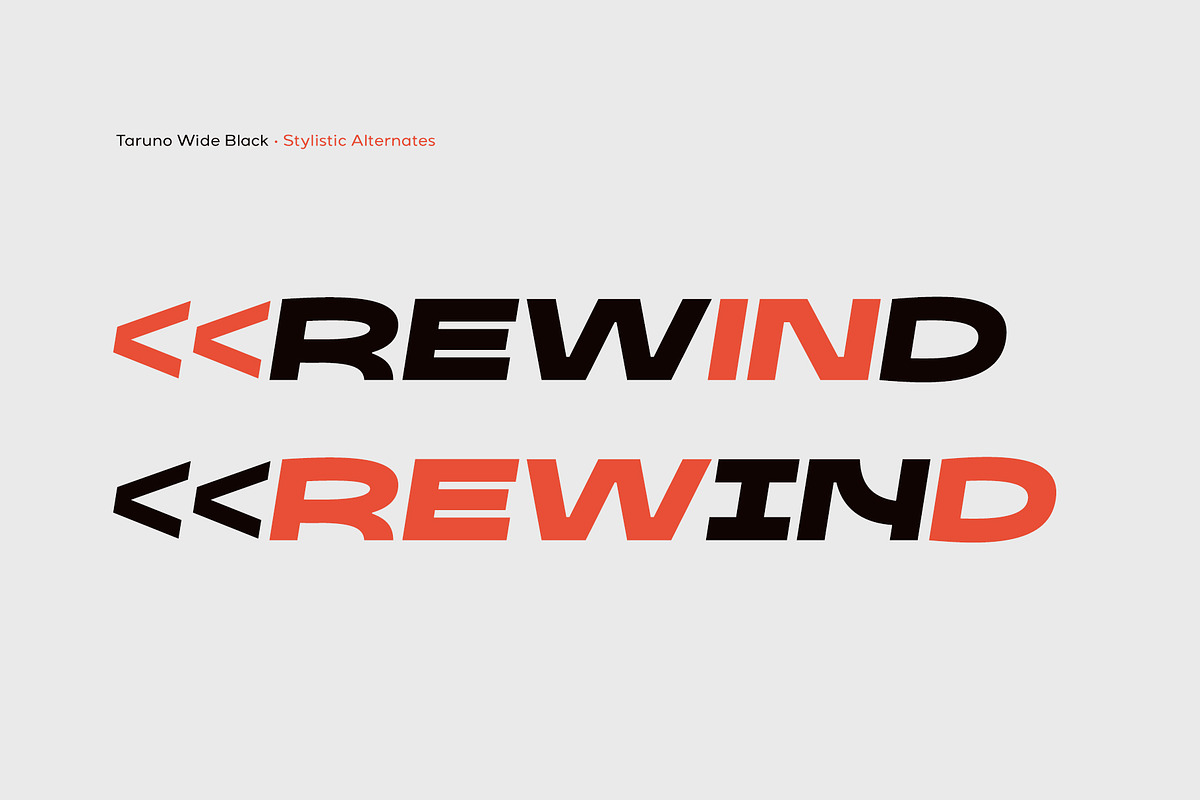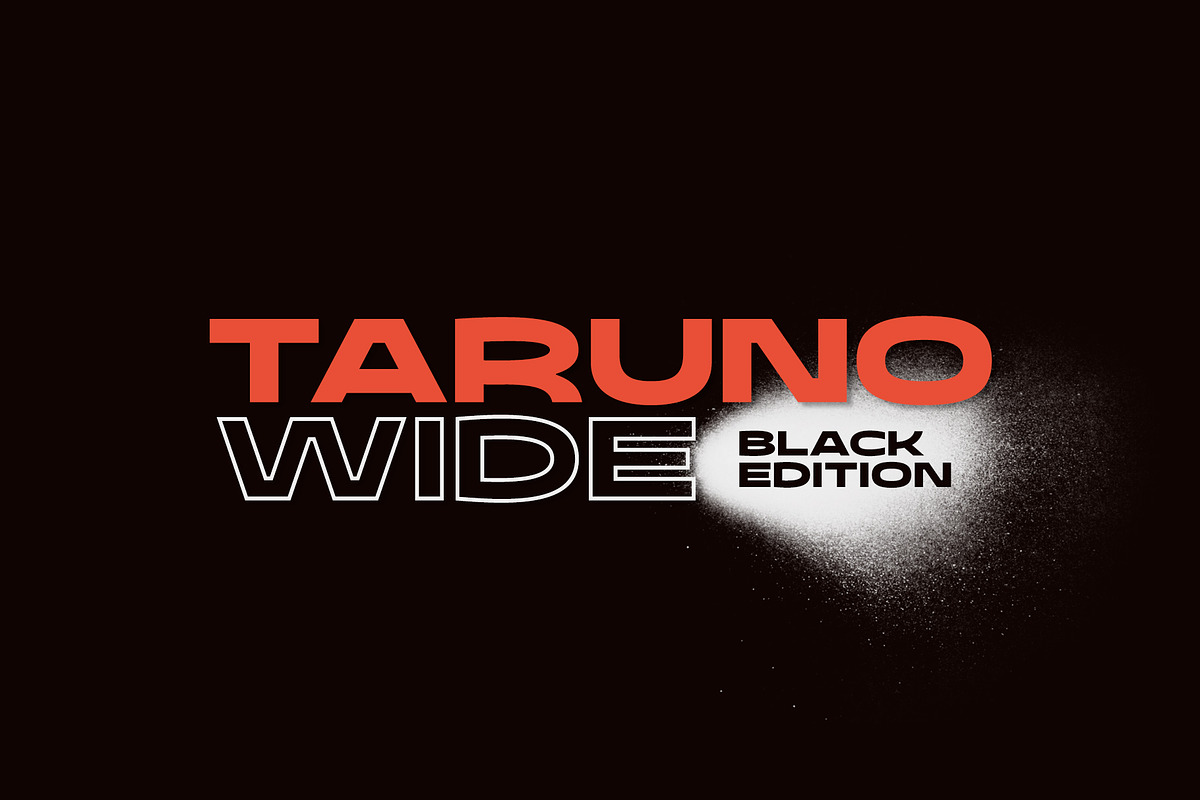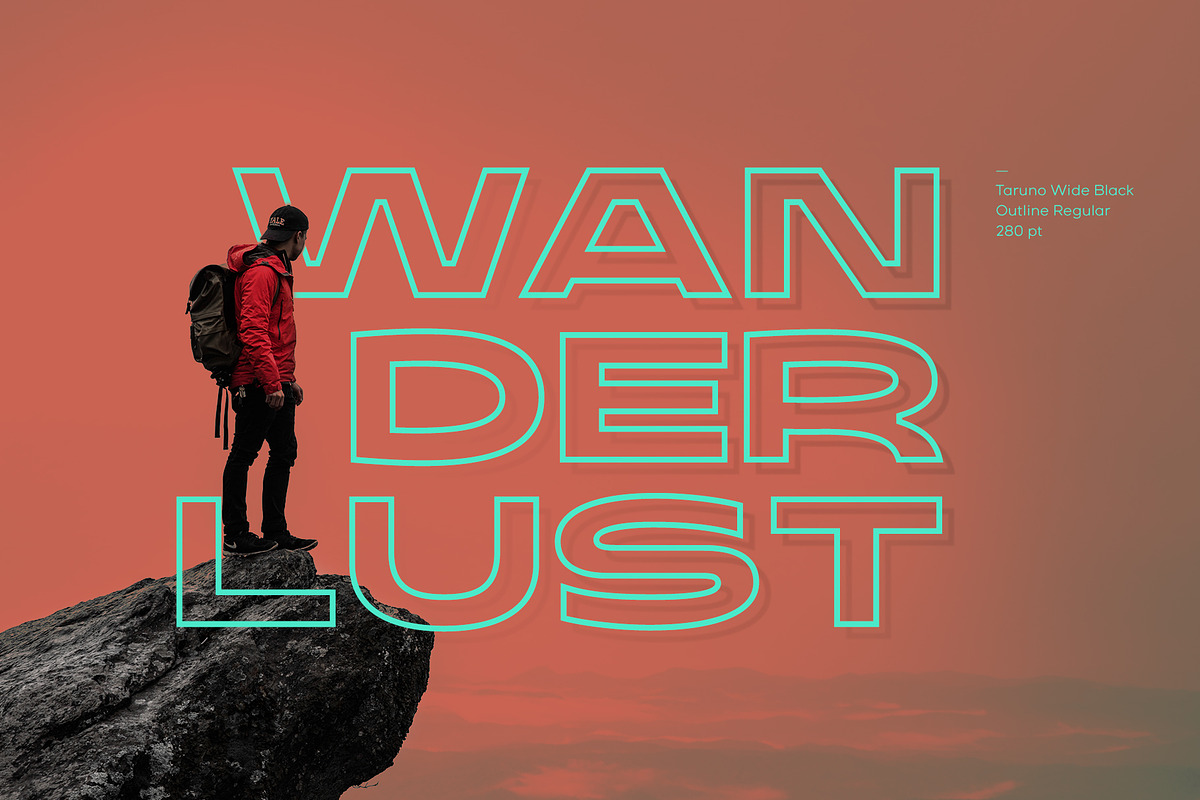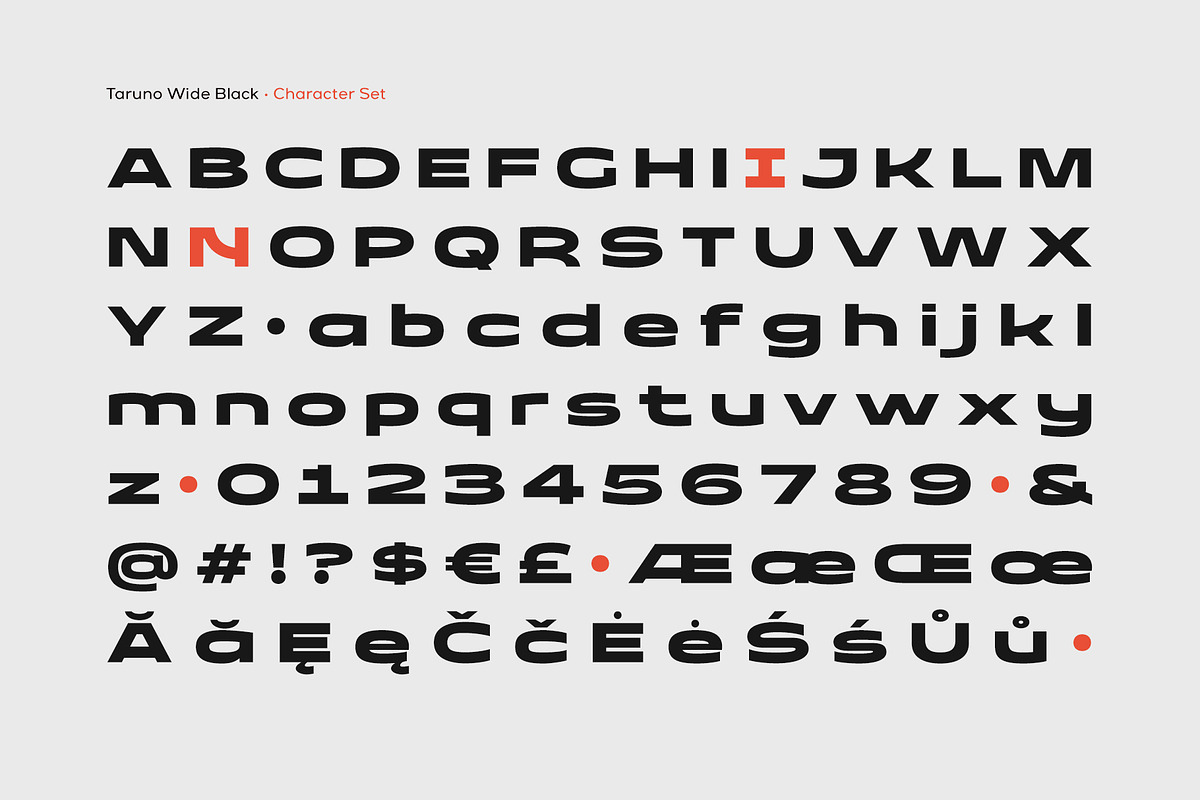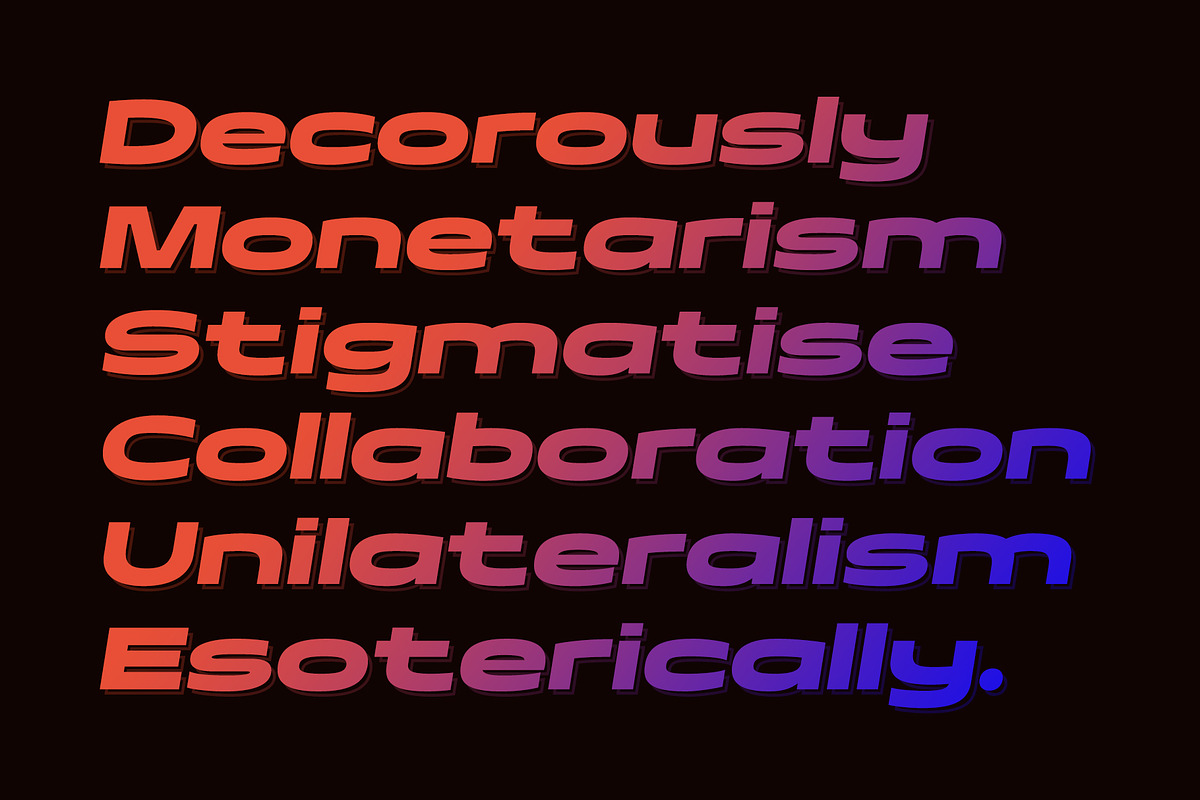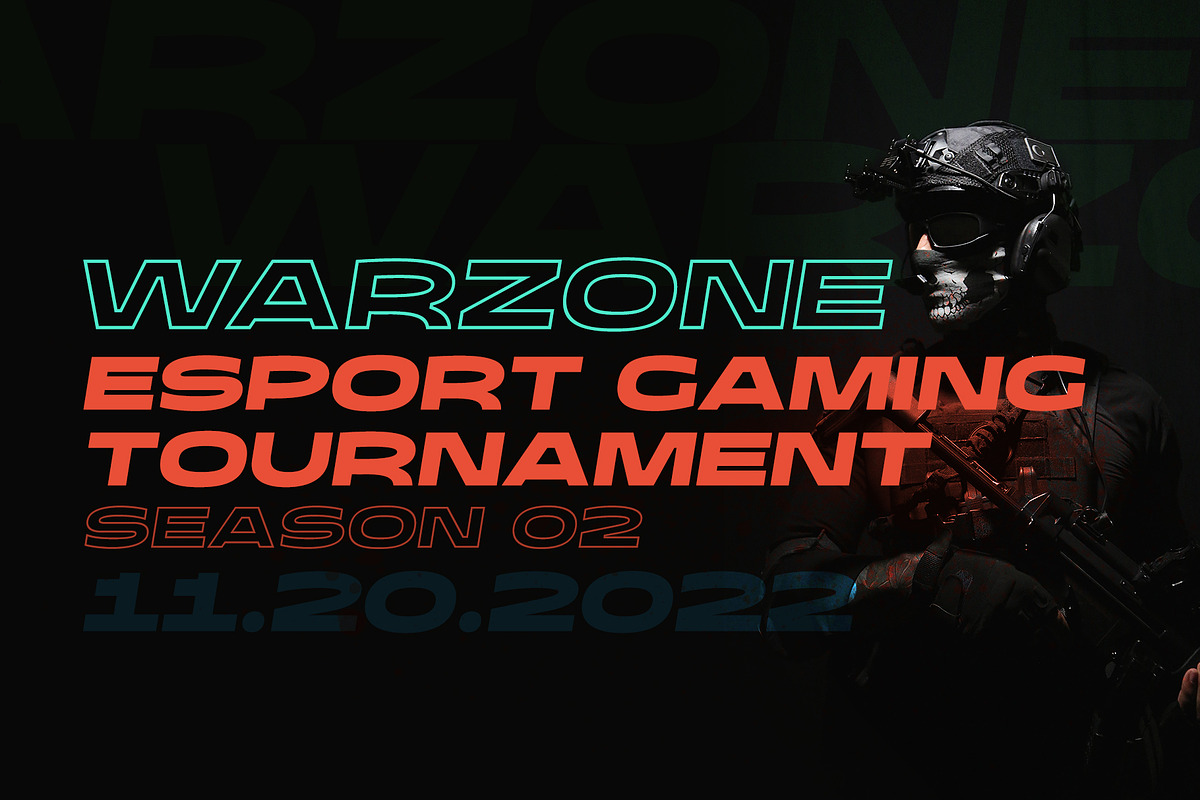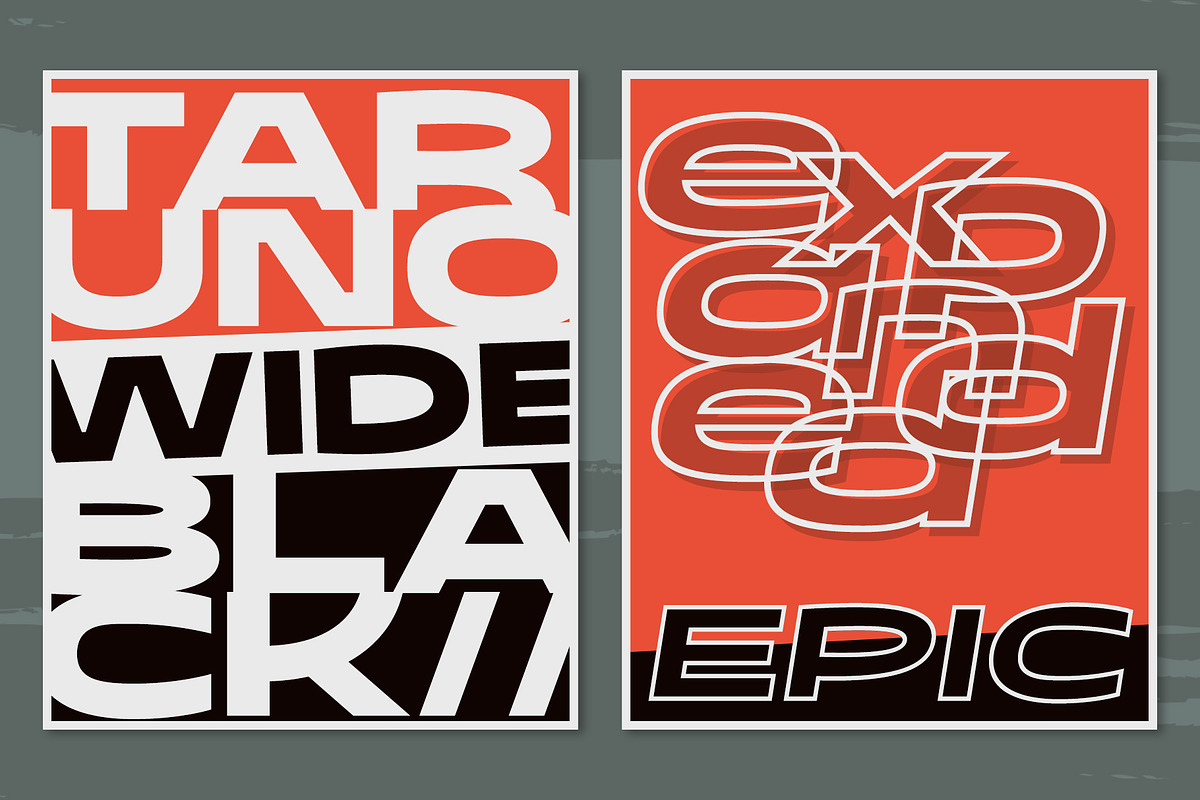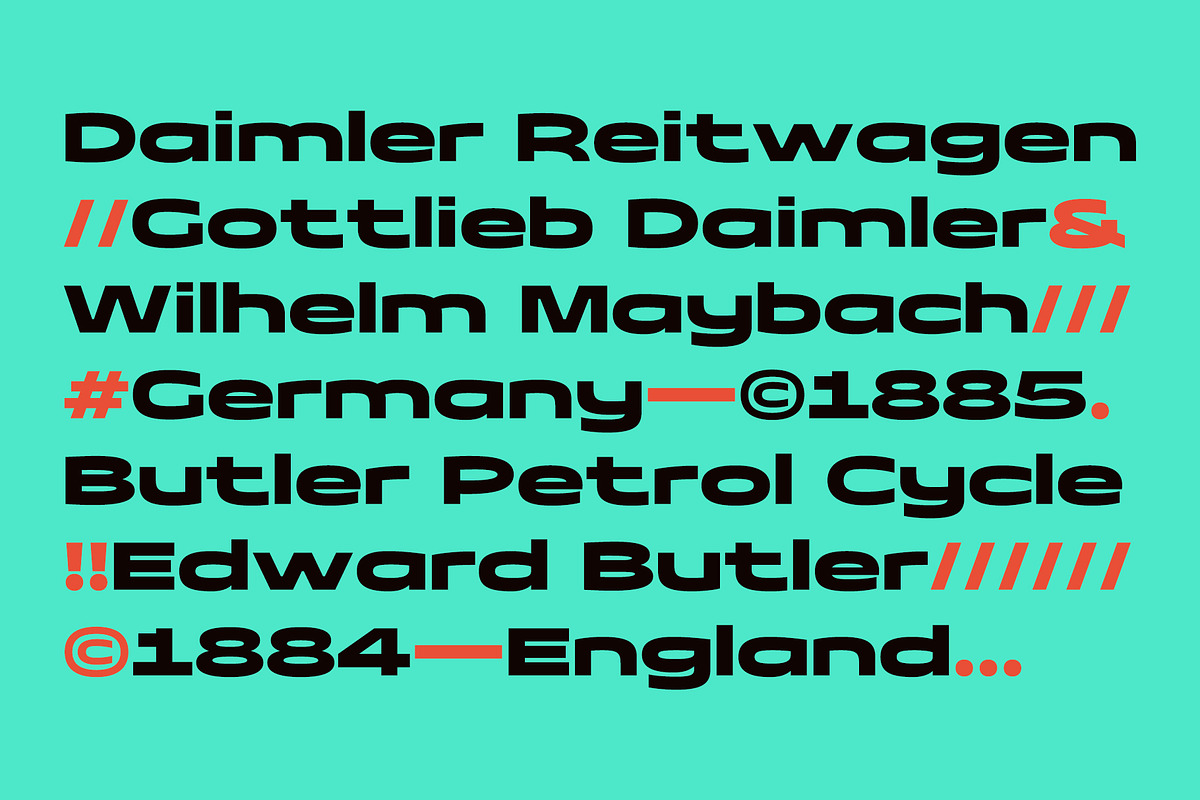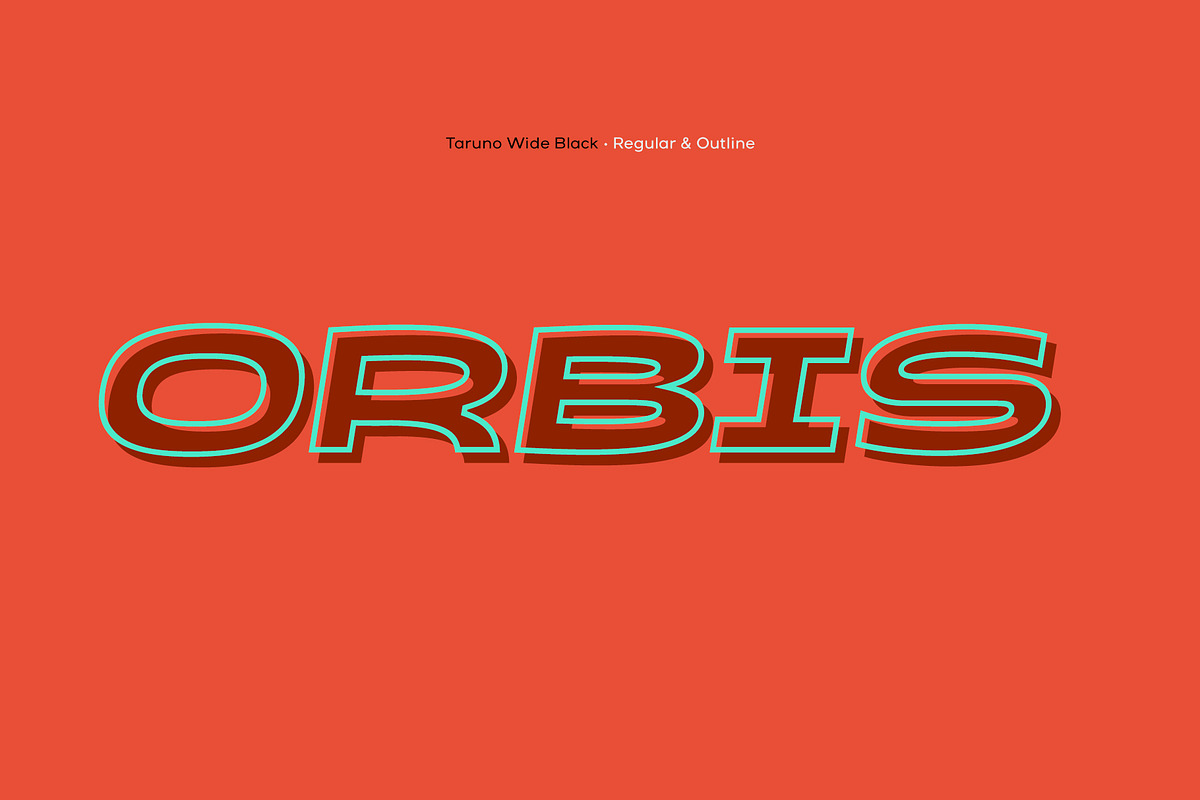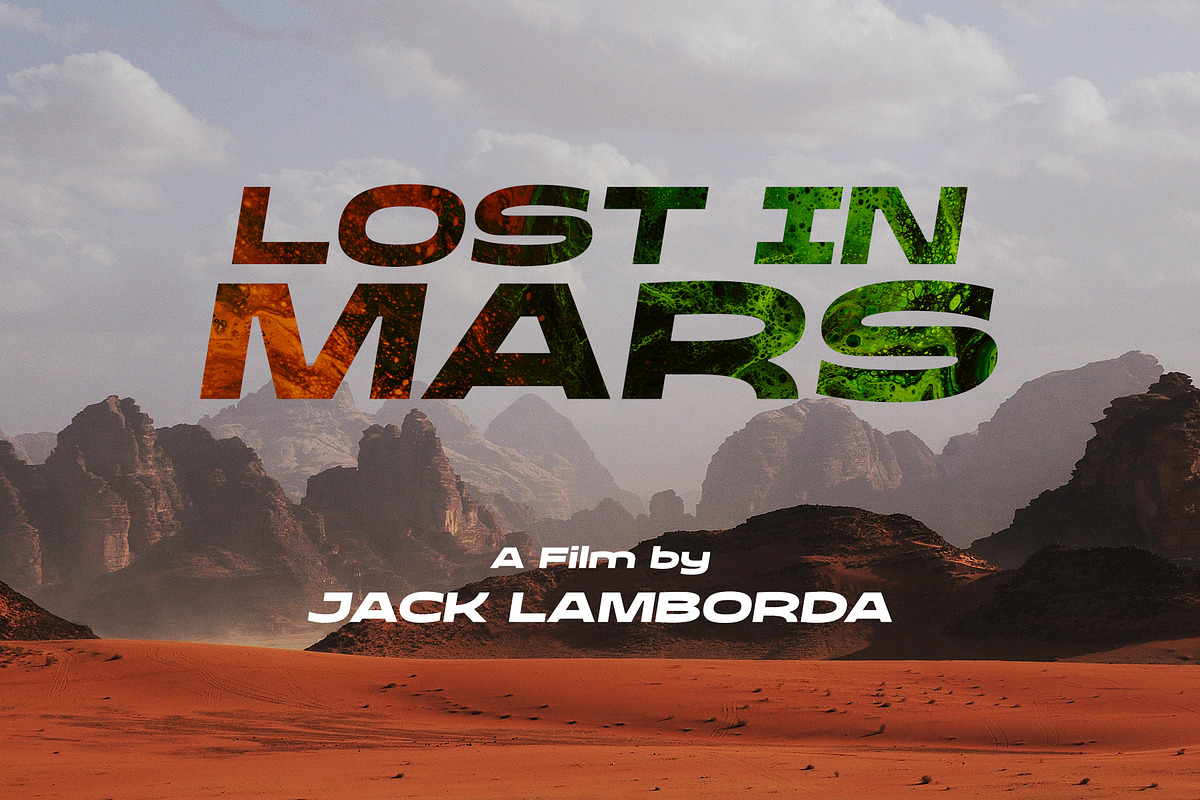
Taruno Wide Black
Taruno Wide Black is a black version separated from the Taruno Wide family. This font is an expanded display font that effortlessly evokes an aggressive yet elegant vibe with a modern twist. Choosing this font is a stellar solution for classy design projects that demand to leave a strong and professional impression. In addition to the regular version, you also get an outline version to complete your collection.
Use Taruno Wide Black for clothing designs, posters, branding, headline, packaging and more!